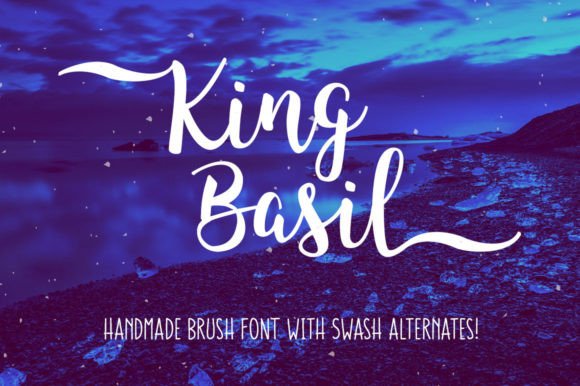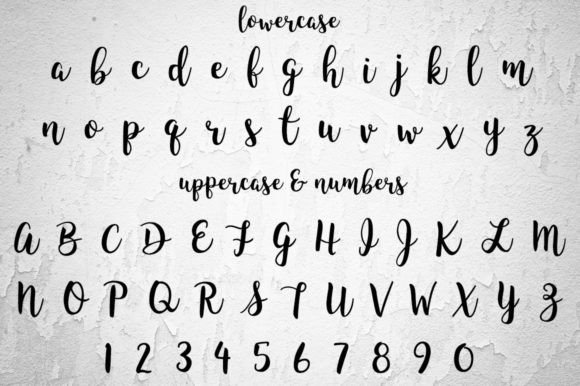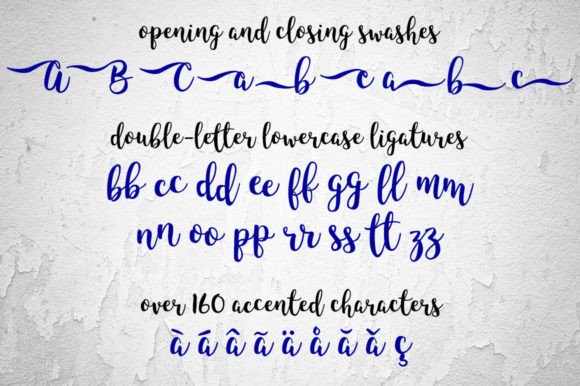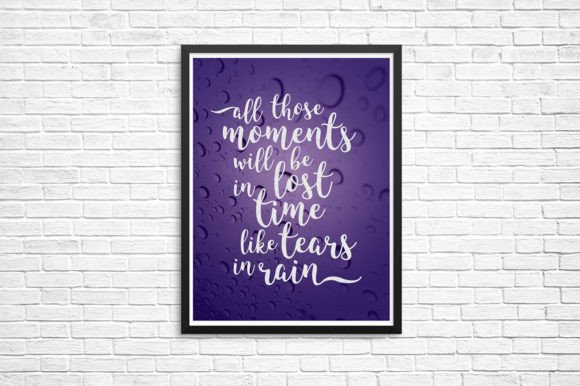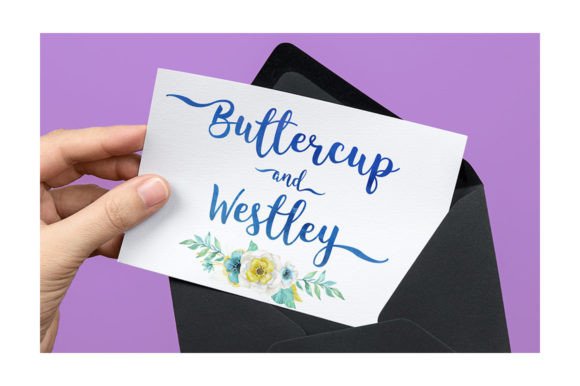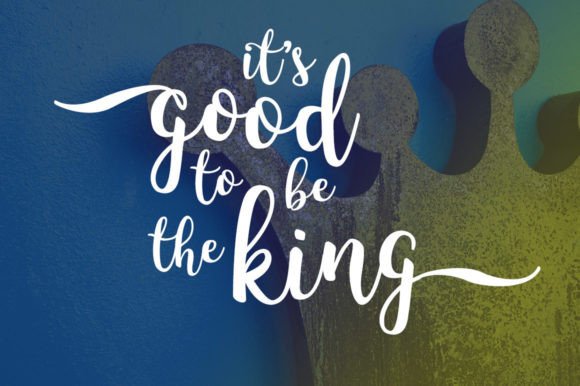
King Basil Font
Meet King Basil, a typeface that goes beyond the ordinary with a rich set of features, boasting 421 meticulously crafted glyphs. Every element, from A-Z, a-z, 0-9, to an array of punctuation, is a testament to its comprehensive design. Developed with meticulous attention, King Basil is a hand-drawn masterpiece created with a Tombow brush pen. The entire process, from hand-drawing on paper to scanning and vectorizing, reflects a commitment to authenticity and artistic excellence.
King Basil’s feature set is impressive, ensuring versatility and creative freedom. It includes both OTF and TTF file formats, catering to various user preferences. The character repertoire spans uppercase A-Z, lowercase a-z, numbers 0-9, and an extensive array of punctuation marks.
For those seeking stylized alternatives, King Basil offers options like stylistic alternates for specific letters, providing distinct variations, especially noticeable in uppercase F and T. The font takes customization further with entry swash alternates for all uppercase A-Z and lowercase a-z characters, adding a touch of flair.
The lowercase characters receive special treatment with exit swash alternates, contributing to the fluidity and aesthetics of the typeface. Additionally, King Basil features 15 double-letter ligatures, promoting smooth and visually pleasing connections between characters.
One of King Basil’s standout attributes is its global inclusivity, with 163 accented characters. This makes it a font of choice for multilingual projects, supporting languages that include diacritic marks, thus enhancing its accessibility and usability across diverse regions.
In summary, King Basil is more than just a font; it’s a meticulously crafted tool for creative expression. With its thoughtful design, stylistic alternates, swashes, ligatures, and multilingual support, King Basil stands ready to elevate a wide range of design projects, adding a touch of sophistication and artistic flair.